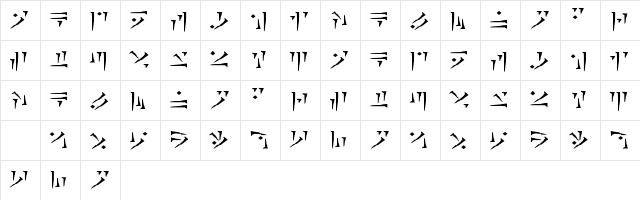
Complete Dovahkiin Regular glyph index. Displaying only characters natively supported by Dovahkiin Regular font.
Dovahkiin is a composed and adaptable typeface that performs quietly and consistently across a wide range of design contexts.